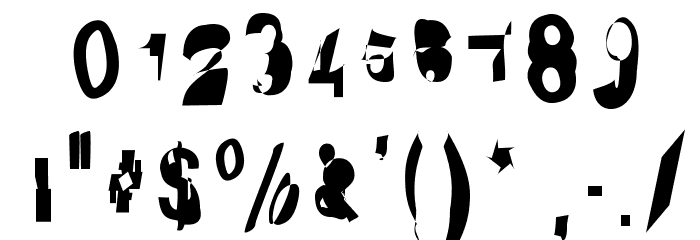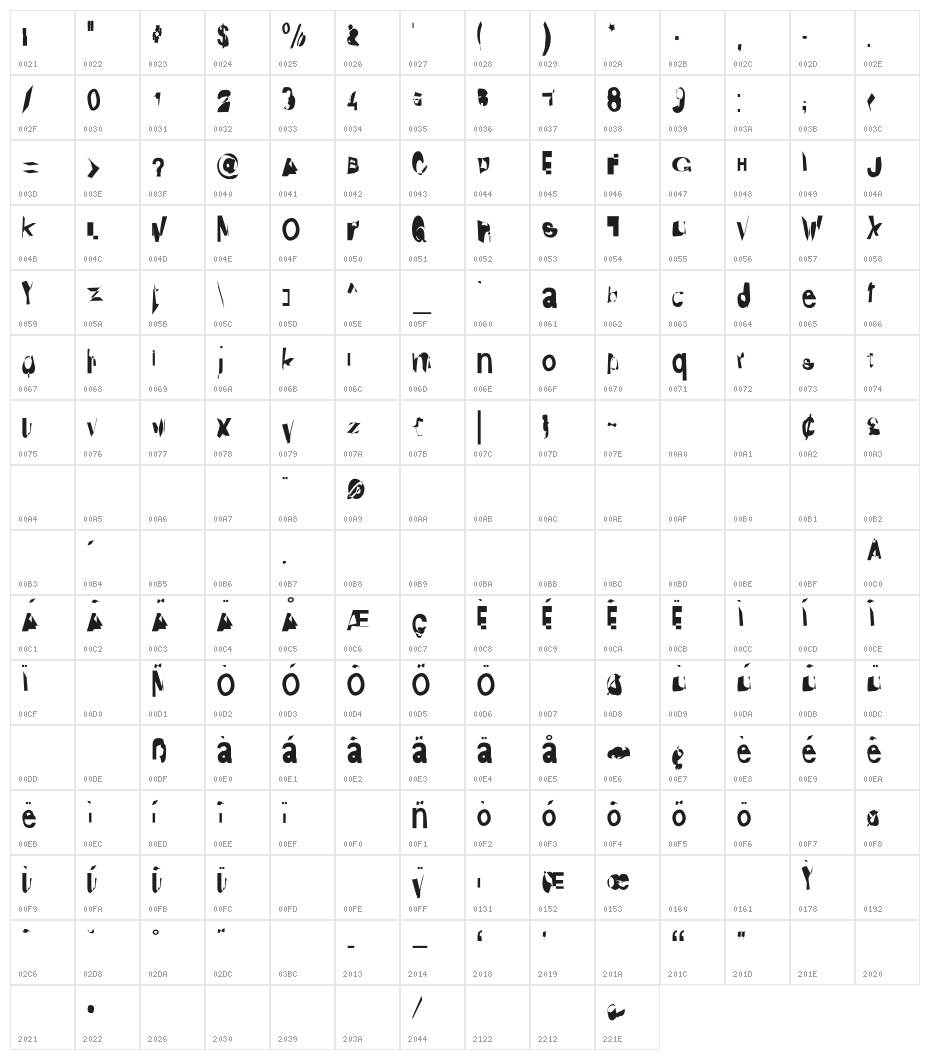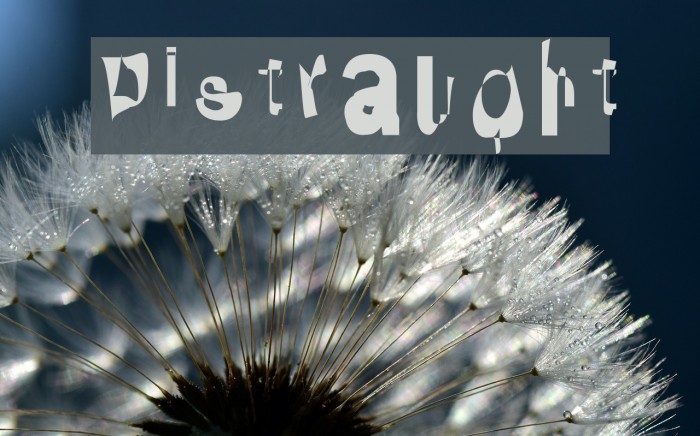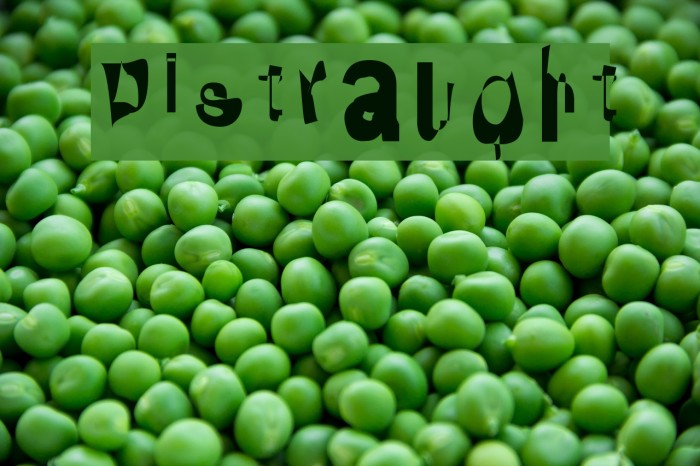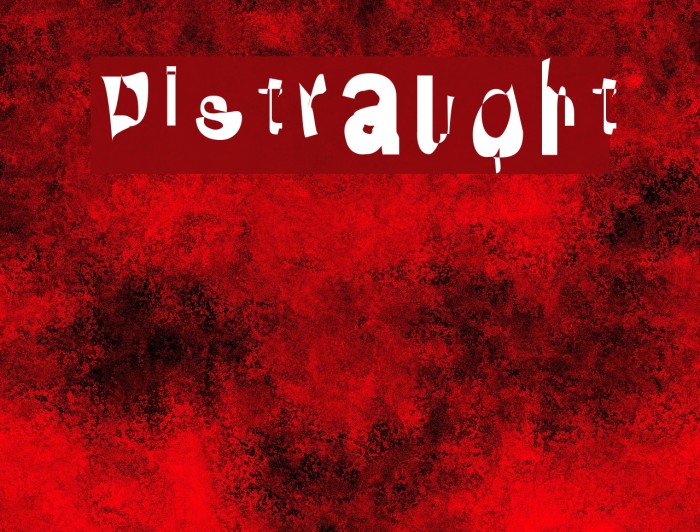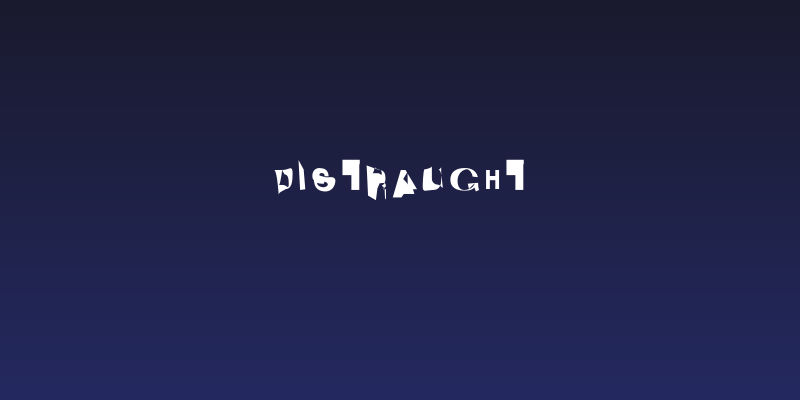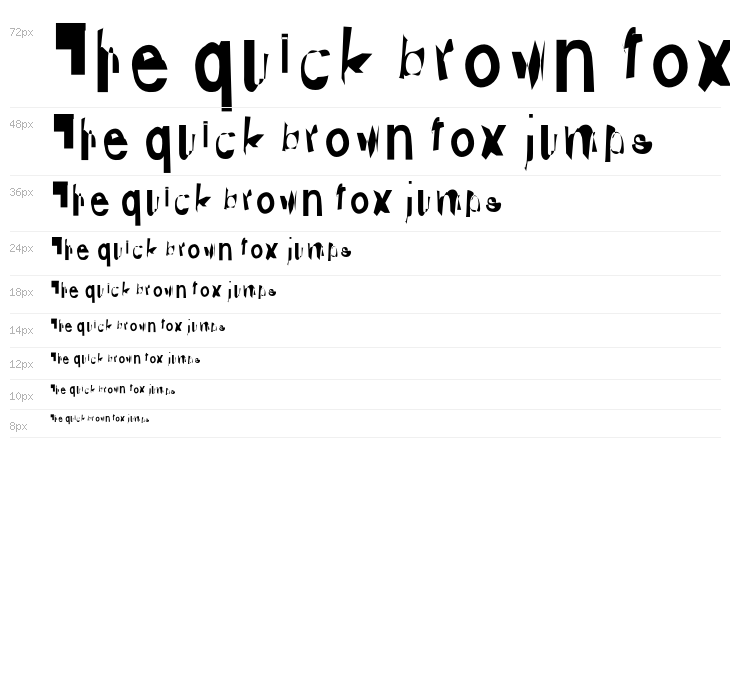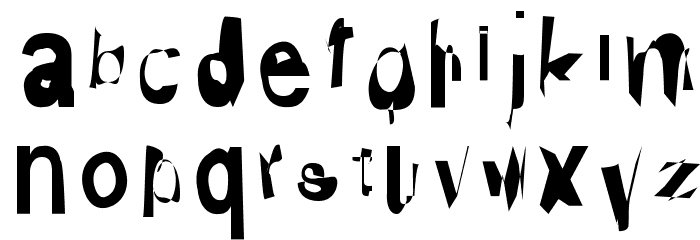
Distraught Font
Distraught Description
This font presents a highly distressed and fragmented appearance, with each character appearing as if it has been torn or shattered. The design is chaotic, with uneven edges and a mix of thick and thin strokes that create a sense of disarray. The uppercase and lowercase letters, as well as the numbers and special characters, all share this fragmented style, making the font highly distinctive and unconventional. The irregular shapes and unpredictable forms give it a dynamic and edgy feel, suitable for projects that aim to convey a sense of disruption or avant-garde aesthetics.
| Proposed Projects | Ideal for album covers, posters, or any design project seeking a bold, disruptive aesthetic. |